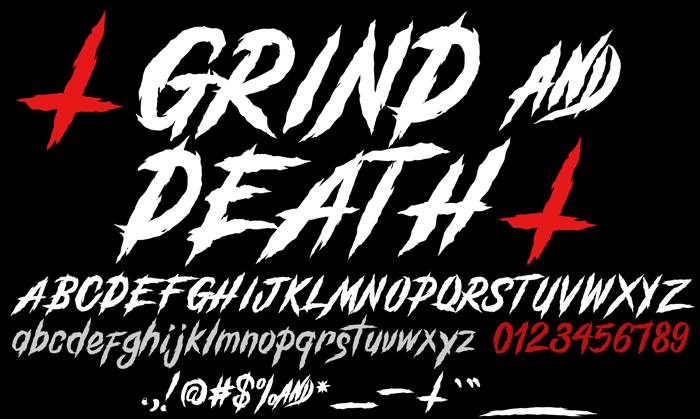
Grind and Death Demo Font
GRIND AND DEATH
- Trashy grunge inspired font perfect on your projects, covers, etc.
- Lifestyle horror theme font with effects for branding, website, mobile app etc.